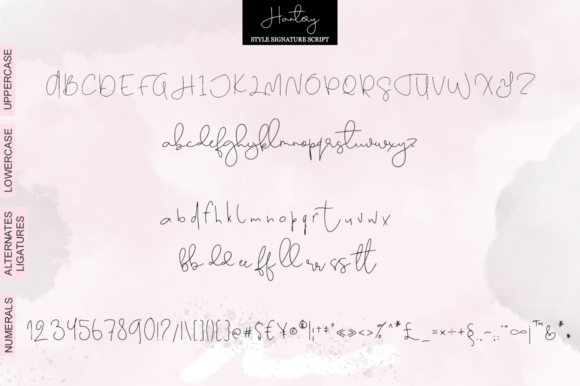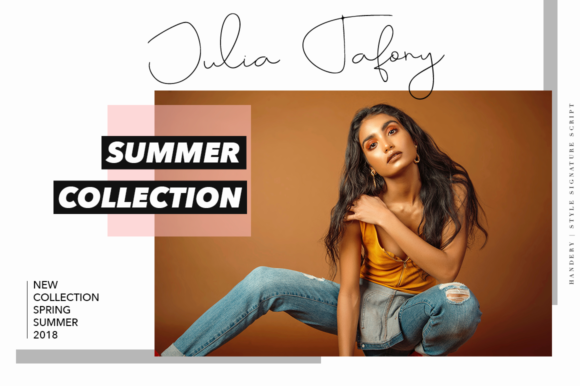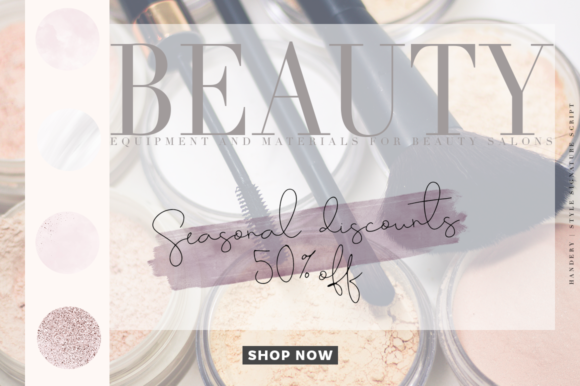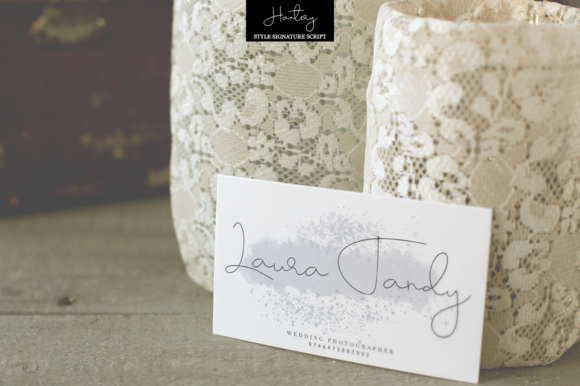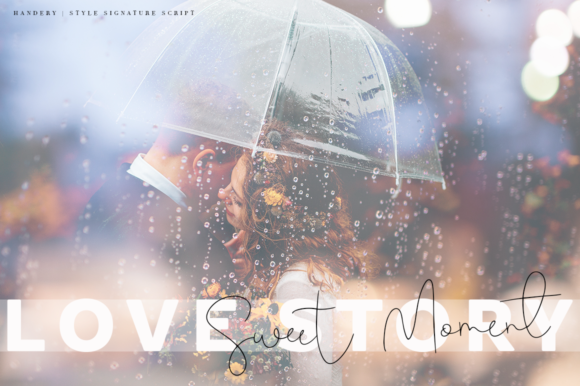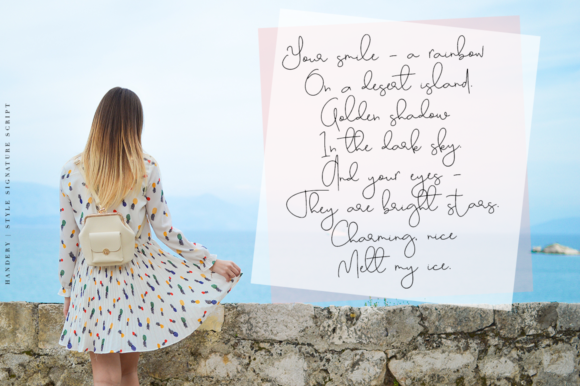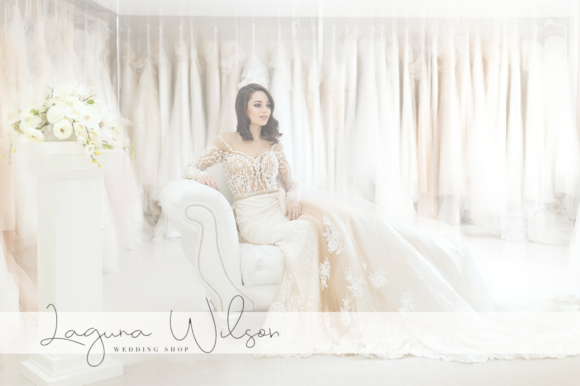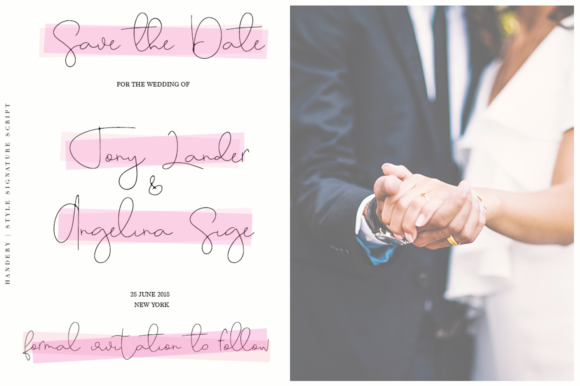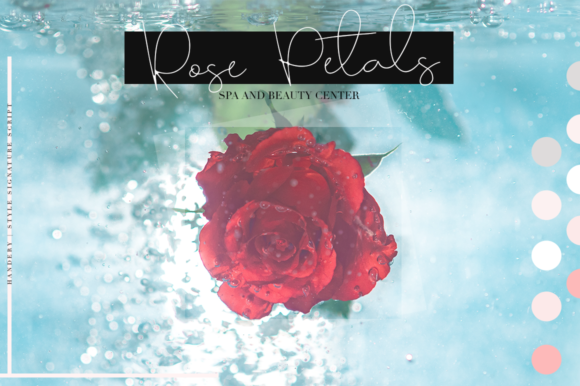
Hantery Font
About Hantery Font
Hantery is a gorgeous signature font, ideal for use in branding your fashionable and editorial content. This font looks stunning both digital and print applications, and works well when paired with serif and sans serif fonts for unique and stellar looking font combinations.